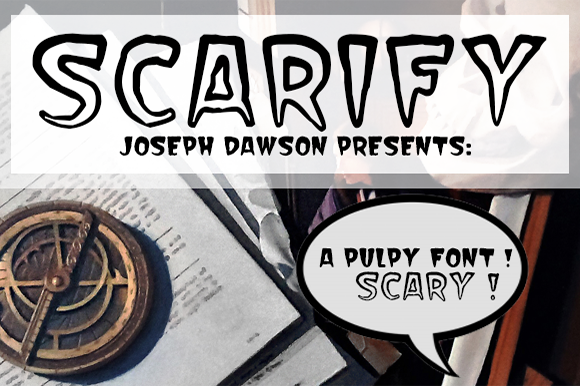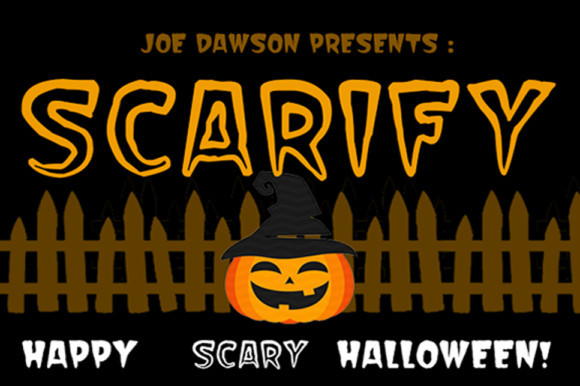
Scarify Font
Spooky, scary and fun: Scarify is the perfect retro Halloween font for getting your Halloween themed projects, comics and crafts ready for the season!